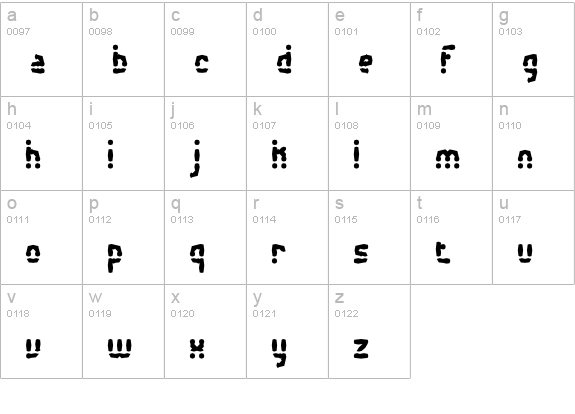
Amalgamate BRK Font Details
Amalgamate BRK font is a striking display typeface that effortlessly blends modern aesthetics with a touch of retro flair. Its bold lines and unique character shapes make it perfect for attention-grabbing headlines, logos, and posters. The font exudes a sense of strength and dynamism, making it ideal for projects that require a bold statement. With its versatile design, Amalgamate BRK font can adapt to a variety of design styles, from sleek and contemporary to vintage and nostalgic. Its distinct personality sets it apart from other fonts, adding a touch of sophistication to any project. Best of all, Amalgamate BRK font is available for free download at FontsMarket.com. So go ahead and unleash your creativity with this stunning typeface that is sure to make your designs stand out from the crowd.